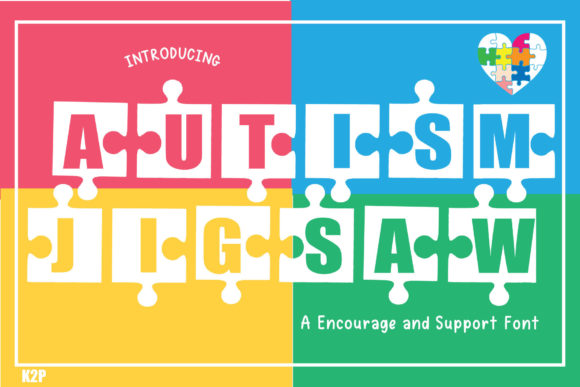
The Autism Jigsaw Font: A Game-Changer for Supportive Designs
I’ll never forget the moment I was working on a project to create awareness about autism. My client wanted a font that would not only convey their message but also resonate with their audience. As I scoured the internet for the perfect font, I stumbled upon the Autism Jigsaw font. It was love at first sight! ✨ The thick lettered and incredibly unique decorative font instantly caught my attention. In this article, I’ll share my experience with the Autism Jigsaw font, its features, and how to make the most of it in various design platforms.
- 💯 The font’s unique and quirky design makes it perfect for projects that require a personal touch.
- 🎉 The font’s thick letters make it highly legible, even at smaller sizes.
- 👍 It’s perfect for designs that require a bold and eye-catching font.
While the Autism Jigsaw font is amazing, there are a few things to keep in mind: 🤔
- ⚠️ The font’s uniqueness might make it less suitable for formal or traditional designs.
- ⚠️ Some users might find the font’s thickness overwhelming for smaller text sizes.
The Autism Jigsaw font was designed with love and care by a team of designers who wanted to create a font that would make a difference. The font’s unique design is inspired by the puzzle pieces that represent autism awareness. The designers aimed to create a font that would not only be visually appealing but also convey the message of support and understanding.
Q: Is the Autism Jigsaw font suitable for body text?
A: While the font is highly legible, its thickness might make it less suitable for large blocks of body text. It’s best used for headings, titles, or emphasis text.